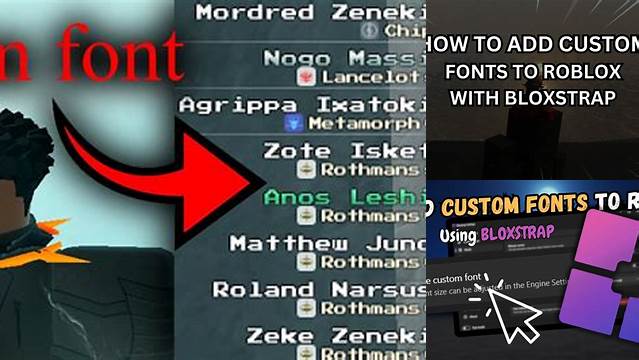
Upload Custom Fonts To Roblox: A Step-by-Step Guide
So, you want to spice up your Roblox game with some custom fonts? Awesome! Adding custom fonts can really elevate the look and feel of your game, making it stand out from the crowd. But how do you actually do it? Don't worry, guys! This guide will walk you through everything you need to know, from finding the perfect font to uploading it and using it in your game. Let's dive in!
1. Understanding Roblox Font Options
Before we get into the nitty-gritty of uploading custom fonts, it's essential to understand what Roblox offers out of the box. Roblox has a set of default fonts that you can use for your TextLabels, TextBoxes, and other UI elements. These fonts are reliable and readily available, but they might not always match the unique style you're aiming for in your game. Roblox's built-in fonts are designed for readability and performance, ensuring that they work well across different devices and resolutions. However, if you're looking to add a touch of personality or create a specific atmosphere, custom fonts are the way to go. Understanding the limitations and possibilities of Roblox's default fonts will help you appreciate the impact that custom fonts can bring to your game's user interface. For example, using a futuristic font in a sci-fi game or an elegant script in a historical setting can significantly enhance the player's immersion and overall experience. Ultimately, knowing your options will empower you to make informed decisions about your game's visual design.
2. Finding the Right Font for Your Game
Choosing the right font is crucial. Think about the theme and style of your game. Is it a futuristic sci-fi adventure, a whimsical fantasy world, or a gritty modern thriller? The font should complement the overall aesthetic. There are tons of websites where you can download free and paid fonts. DaFont, Google Fonts, and FontSpace are great places to start. When browsing, pay attention to the font's license. Make sure it allows commercial use if you plan to monetize your game. Also, consider readability. A fancy, intricate font might look cool, but if players can't easily read it, it's not a good choice. Test out different fonts in your game to see how they look and feel. Adjust the size, color, and spacing to ensure optimal readability and visual appeal. Don't be afraid to experiment and iterate until you find the perfect font that captures the essence of your game. The right font can make all the difference in creating a memorable and engaging player experience. Remember, the goal is to enhance, not distract, from the gameplay.
3. Font File Formats: TTF vs. OTF
When you download fonts, you'll often encounter two main file formats: TTF (TrueType Font) and OTF (OpenType Font). Both formats are widely used and supported, but there are some key differences. TTF is the older format and is generally simpler, while OTF is more advanced and offers additional features like ligatures and alternate glyphs. For Roblox, either TTF or OTF will work just fine. However, OTF fonts tend to be larger in file size due to the extra features they contain. This difference in size could potentially impact the loading times of your game, especially if you're using multiple custom fonts. Therefore, it's a good practice to optimize your font files to reduce their size without sacrificing quality. Tools like FontForge can help you remove unnecessary data from your font files, making them more efficient for use in Roblox. Ultimately, the choice between TTF and OTF depends on your specific needs and priorities. If you require advanced typographic features, OTF is the way to go. Otherwise, TTF is a reliable and efficient option.
4. Preparing Your Font File for Roblox
Before you upload your font to Roblox, it's a good idea to prepare the file. This involves renaming the font file to something descriptive and easy to remember. For example, instead of "Font123.ttf," you might rename it to "SciFiFont.ttf." This will make it easier to identify and manage your fonts in Roblox Studio. Additionally, it's crucial to ensure that your font file is free from errors or corruption. Corrupted font files can cause issues in Roblox, such as text not rendering correctly or even crashes. You can use font validation tools to check for any potential problems and fix them before uploading. Another important step is to optimize the font file size. Large font files can increase the loading time of your game, which can negatively impact the player experience. Tools like FontForge can help you reduce the file size without compromising the font's quality. By taking these preparatory steps, you can ensure a smooth and hassle-free font uploading process in Roblox.
5. Uploading Fonts to Roblox
Okay, now for the main event: uploading your custom font to Roblox! First, open Roblox Studio and navigate to the game you want to add the font to. In the Explorer window, find the "FontService" object. If it's not there, you can add it by clicking the plus icon (+) and searching for "FontService." Once you've found the FontService, right-click on it and select "Add Custom Font." A file explorer window will pop up, allowing you to select your font file. Choose the TTF or OTF file you prepared earlier and click "Open." Roblox Studio will then upload the font and add it to the FontService. You should now see your custom font listed under the FontService object in the Explorer window. If you encounter any errors during the upload process, double-check that your font file is not corrupted and that you have the necessary permissions to add assets to your game. With your font successfully uploaded, you're ready to start using it in your game's UI elements.
6. Using Custom Fonts in TextLabels
Now that your custom font is uploaded, let's put it to use! Open up a ScreenGui and add a TextLabel. Select the TextLabel, and in the Properties window, find the "Font" property. Click on the dropdown menu, and you should see your custom font listed among the available options. Select your font, and voila! The text in the TextLabel will now be rendered using your custom font. You can adjust the size, color, and other properties of the text to fine-tune its appearance. Experiment with different settings to achieve the desired look and feel. Keep in mind that the readability of the text is crucial, so make sure to choose a font size and color that are easy on the eyes. If you're using multiple TextLabels in your game, you can apply the same custom font to all of them to maintain a consistent visual style. With custom fonts, you can transform your TextLabels from plain and ordinary to visually stunning and engaging.
7. Applying Fonts to TextBoxes
Textboxes are another essential UI element where custom fonts can make a big difference. The process of applying a custom font to a TextBox is similar to that of a TextLabel. Add a TextBox to your ScreenGui, select it, and navigate to the "Font" property in the Properties window. From the dropdown menu, choose your custom font, and the text within the TextBox will instantly update. One thing to keep in mind with TextBoxes is that users will be typing into them, so readability is even more critical. Choose a font that is clear and easy to read, even at smaller sizes. Also, consider the color of the text and the background of the TextBox. Ensure that there is sufficient contrast between the two to prevent eye strain. By carefully selecting and applying custom fonts to your TextBoxes, you can create a more user-friendly and visually appealing input experience for your players.
8. Font Size Considerations
Font size plays a crucial role in the readability and overall appearance of your game's UI. When using custom fonts, it's essential to carefully consider the appropriate font size for different elements. A font size that looks great on your computer might appear too small or too large on different devices or resolutions. Therefore, it's a good practice to test your game on various devices to ensure that the text is legible and visually appealing across the board. Roblox offers tools and features that can help you scale your UI elements automatically based on screen size. Using these tools in conjunction with custom fonts can help you create a consistent and responsive user interface that adapts to different screen sizes. Additionally, consider the context in which the text is being displayed. Important information, such as game instructions or dialogue, should be displayed in a larger font size to ensure that players don't miss it. By paying attention to font size considerations, you can create a more user-friendly and engaging experience for your players.
9. Color and Contrast with Custom Fonts
The color and contrast of your text are just as important as the font itself. A beautifully designed font can be rendered unreadable if the color scheme is poorly chosen. When using custom fonts, pay close attention to the contrast between the text color and the background color. Insufficient contrast can cause eye strain and make it difficult for players to read the text. A good rule of thumb is to use contrasting colors, such as black text on a white background or vice versa. However, you can also experiment with different color combinations to achieve a specific aesthetic. Just make sure that the text remains legible and easy on the eyes. Roblox offers a wide range of color options that you can use to customize your text and UI elements. You can also use gradients and other visual effects to add depth and interest to your text. By carefully considering color and contrast, you can enhance the visual appeal and readability of your custom fonts.
10. Optimizing Font Performance in Roblox
Performance is always a concern when developing games, and custom fonts are no exception. While custom fonts can greatly enhance the visual appeal of your game, they can also impact performance if not used efficiently. Large font files can increase the loading time of your game, which can negatively affect the player experience. Therefore, it's essential to optimize your font files to reduce their size without sacrificing quality. Tools like FontForge can help you remove unnecessary data from your font files, making them more efficient for use in Roblox. Additionally, consider using font atlases, which combine multiple font glyphs into a single image. This can reduce the number of draw calls required to render text, improving performance. By implementing these optimization techniques, you can ensure that your custom fonts look great without compromising the performance of your game.
11. Troubleshooting Font Upload Issues
Sometimes, things don't go as planned. If you're having trouble uploading your custom font to Roblox, don't panic! There are a few common issues that can cause problems. First, make sure that your font file is not corrupted. Corrupted font files can cause errors during the upload process. You can use font validation tools to check for any potential problems and fix them before uploading. Another common issue is insufficient permissions. Ensure that you have the necessary permissions to add assets to your game. If you're working on a team project, you may need to ask the game owner to grant you the required permissions. Additionally, check that your font file is in the correct format (TTF or OTF) and that it meets Roblox's file size limits. If you've tried all of these solutions and are still experiencing issues, consult the Roblox developer documentation or ask for help on the Roblox developer forums.
12. Managing Multiple Custom Fonts
As your game evolves, you may find yourself using multiple custom fonts to create a diverse and visually appealing user interface. Managing multiple fonts can become challenging, especially in larger projects. It's essential to establish a clear naming convention for your font files to keep them organized. Use descriptive names that indicate the font's style and purpose. For example, "SciFiFont_Title.ttf" or "FantasyFont_Body.ttf." Additionally, consider creating a separate folder in your Roblox Studio project to store all of your custom fonts. This will help you keep your project organized and make it easier to find the fonts you need. You can also use Roblox's asset management features to track and manage your custom fonts. By implementing these management techniques, you can avoid confusion and ensure that your custom fonts are always readily available when you need them.
13. Creating a Font Style Guide
Consistency is key in game development, especially when it comes to visual design. To maintain a consistent look and feel throughout your game, it's helpful to create a font style guide. A font style guide outlines the specific fonts that should be used for different elements in your game, such as titles, headings, body text, and UI labels. It also specifies the font sizes, colors, and other formatting options that should be applied to each font. By creating a font style guide, you can ensure that all members of your development team are on the same page when it comes to typography. This will help you avoid inconsistencies and create a more professional and polished user interface. A well-defined font style guide can also save you time and effort in the long run, as you won't have to make decisions about font choices on a case-by-case basis.
14. Licensing Considerations for Custom Fonts
Before you start using custom fonts in your game, it's crucial to understand the licensing terms associated with each font. Many fonts are free for personal use but require a commercial license if you plan to use them in a game that you sell or monetize. Using a font without the proper license can lead to legal issues, so it's essential to do your research and ensure that you have the necessary permissions. Websites like DaFont and Google Fonts typically provide information about the licensing terms for each font. Pay close attention to these terms and make sure that they align with your intended use. If you're unsure about the licensing terms, it's always best to err on the side of caution and contact the font designer or foundry for clarification. By taking the time to understand the licensing considerations for custom fonts, you can avoid potential legal problems and ensure that you're using fonts in a responsible and ethical manner.
15. Animating Text with Custom Fonts
Adding animation to your text can bring your game's UI to life and create a more engaging experience for players. Roblox offers a variety of animation tools and techniques that you can use to animate text with custom fonts. You can use tweening to smoothly change the position, size, color, or opacity of text over time. You can also use scripting to create more complex animations, such as scrolling text or pulsating effects. When animating text, it's important to consider the readability of the text. Avoid animations that are too fast or distracting, as they can make it difficult for players to read the text. Instead, focus on subtle and elegant animations that enhance the visual appeal of the text without compromising its readability. By combining custom fonts with animation, you can create a truly unique and captivating user interface.
16. Localizing Custom Fonts for Different Languages
If your game is targeted at a global audience, it's important to consider localizing your custom fonts for different languages. Not all fonts support all languages, so you may need to use different fonts for different languages. Roblox provides tools and features that make it easy to localize your game's text. You can use the LocalizationService to automatically translate your text into different languages. When using custom fonts, make sure that the fonts you choose support the languages you're targeting. If a font doesn't support a particular language, the text may be displayed in a default font or as garbled characters. To avoid this issue, you can use font fallback mechanisms to specify alternative fonts that should be used when the primary font doesn't support a particular character. By taking the time to localize your custom fonts, you can ensure that your game is accessible to players from all over the world.
17. Advanced Text Effects with Custom Fonts
Beyond basic formatting options, you can use advanced text effects to create even more visually stunning and engaging user interfaces. Roblox supports a variety of text effects, such as shadows, outlines, and glows, that you can apply to custom fonts. These effects can add depth and dimension to your text, making it stand out from the background. You can also use gradients and textures to create unique and eye-catching text styles. Experiment with different combinations of effects to achieve the desired look and feel. Keep in mind that too many effects can make the text look cluttered and difficult to read, so it's important to use them sparingly and strategically. By mastering advanced text effects, you can transform your custom fonts into works of art.
18. Using Custom Fonts in 3D Space
While custom fonts are most commonly used in UI elements, you can also use them in 3D space to create signs, labels, and other decorative elements. Roblox allows you to create Text objects in 3D space that can be customized with custom fonts. These Text objects can be positioned and rotated just like any other 3D object in your game. When using custom fonts in 3D space, it's important to consider the viewing angle and distance. The text should be large enough to be easily read from a distance, but not so large that it obscures the surrounding environment. You can also use lighting and shadows to enhance the visibility of the text. By creatively using custom fonts in 3D space, you can add depth and realism to your game world.
19. Font Caching Strategies
To further optimize the performance of your game, consider implementing font caching strategies. Font caching involves storing frequently used font glyphs in memory so that they can be quickly accessed when needed. This can reduce the number of times that the font file needs to be read from disk, improving loading times and reducing memory usage. Roblox automatically caches some font data, but you can also implement your own custom caching mechanisms to further optimize performance. For example, you can create a dictionary that stores font glyphs that are commonly used in your game. When you need to display a particular glyph, you can first check if it's already in the cache. If it is, you can retrieve it from the cache instead of loading it from the font file. By implementing font caching strategies, you can significantly improve the performance of your game, especially when using multiple custom fonts.
20. Dynamic Font Loading
In some cases, you may not need to load all of your custom fonts at the start of the game. Instead, you can use dynamic font loading to load fonts only when they are needed. Dynamic font loading can reduce the initial loading time of your game, making it faster to start up. To implement dynamic font loading, you can use the ContentProvider service to load font files asynchronously. When a particular font is needed, you can use the ContentProvider:RequestContent() method to load the font file. Once the font file is loaded, you can apply it to the appropriate UI elements. By using dynamic font loading, you can optimize the loading process of your game and improve the overall player experience.
21. Best Practices for Font Selection
Choosing the right font can be overwhelming, with so many options available. Here are some best practices to help you make the right choice:
- Consider your game's genre and theme: Select fonts that align with the overall style and atmosphere of your game.
- Prioritize readability: Choose fonts that are easy to read, even at smaller sizes.
- Limit the number of fonts: Using too many fonts can make your game look cluttered and inconsistent.
- Test on different devices: Ensure that your fonts look good on different devices and screen resolutions.
- Get feedback: Ask other developers or players for their opinions on your font choices.
22. Avoiding Common Font Mistakes
- Using too many fonts: Stick to a maximum of two or three fonts to maintain a consistent look.
- Choosing unreadable fonts: Prioritize readability over aesthetics.
- Ignoring font licensing: Always ensure that you have the proper license to use a font commercially.
- Overusing font effects: Use effects sparingly to avoid making the text look cluttered.
- Failing to test on different devices: Ensure that your fonts look good on all devices that your game supports.
23. Integrating Fonts with UI Design Principles
Make sure your font choices align with established UI design principles:
- Clarity: Ensure text is easy to read and understand.
- Consistency: Use a consistent font style across your UI.
- Hierarchy: Use different font sizes and styles to create a visual hierarchy.
- Contrast: Ensure sufficient contrast between text and background for readability.
- White Space: Use white space to improve readability and reduce clutter.
24. Testing Font Readability on Different Devices
Always test your font choices on a variety of devices:
- Mobile phones: Test on different screen sizes and resolutions.
- Tablets: Check how fonts scale on larger screens.
- Computers: Ensure fonts look good on different monitors.
- Virtual Reality Headsets: If your game supports VR, test font readability in VR.
25. Font Accessibility Considerations
Ensure your font choices are accessible to all players:
- Use clear and simple fonts: Avoid overly stylized fonts that may be difficult to read.
- Provide options for font size: Allow players to adjust font size to their preference.
- Ensure sufficient contrast: Use high-contrast color schemes for readability.
- Consider using sans-serif fonts: Sans-serif fonts are generally easier to read for people with dyslexia.
26. Using Font Icons
Use font icons to add visual elements to your UI:
- Download a font icon set: Font Awesome and Material Icons are popular choices.
- Import the font into Roblox: Upload the font file to Roblox Studio.
- Use the icon characters in your TextLabels and TextBoxes: Refer to the font icon documentation for the correct character codes.
27. Font Fallback Mechanisms
Implement font fallback mechanisms to ensure text is always displayed:
- Specify a default font: Set a default font that will be used if the primary font is not available.
- Use font stacks: Create a list of fonts that will be used in order of preference.
- Test font fallback: Ensure that the fallback font is readable and visually consistent with the primary font.
28. Creating Custom Font Textures
Create custom font textures to add unique visual effects:
- Design your font in a graphics editor: Create a texture for each character in your font.
- Import the textures into Roblox: Upload the textures to Roblox Studio.
- Use the textures in your UI elements: Apply the textures to TextLabels and TextBoxes.
29. Optimizing Font Memory Usage
Optimize font memory usage to improve game performance:
- Use font atlases: Combine multiple font glyphs into a single texture.
- Limit the number of fonts used: Reduce the number of different fonts used in your game.
- Remove unused fonts: Delete any fonts that are not being used in your game.
30. Future Trends in Font Technology
Stay up-to-date with future trends in font technology:
- Variable fonts: Explore the use of variable fonts, which allow you to adjust font weight, width, and other parameters.
- 3D fonts: Experiment with 3D fonts to create more immersive and visually stunning user interfaces.
- AI-powered font design: Keep an eye on AI-powered font design tools, which can help you create unique and custom fonts.
And there you have it! With these tips and tricks, you'll be able to upload custom fonts to Roblox like a pro. Get creative, experiment, and have fun designing the perfect UI for your game!